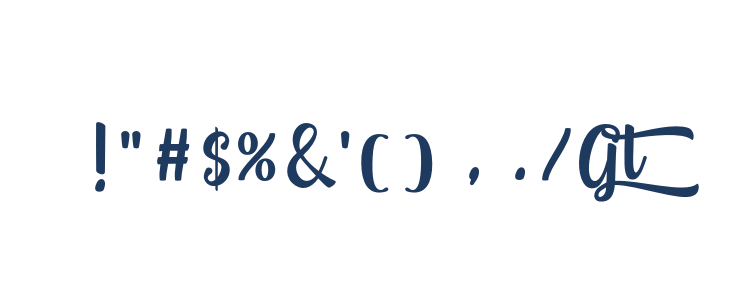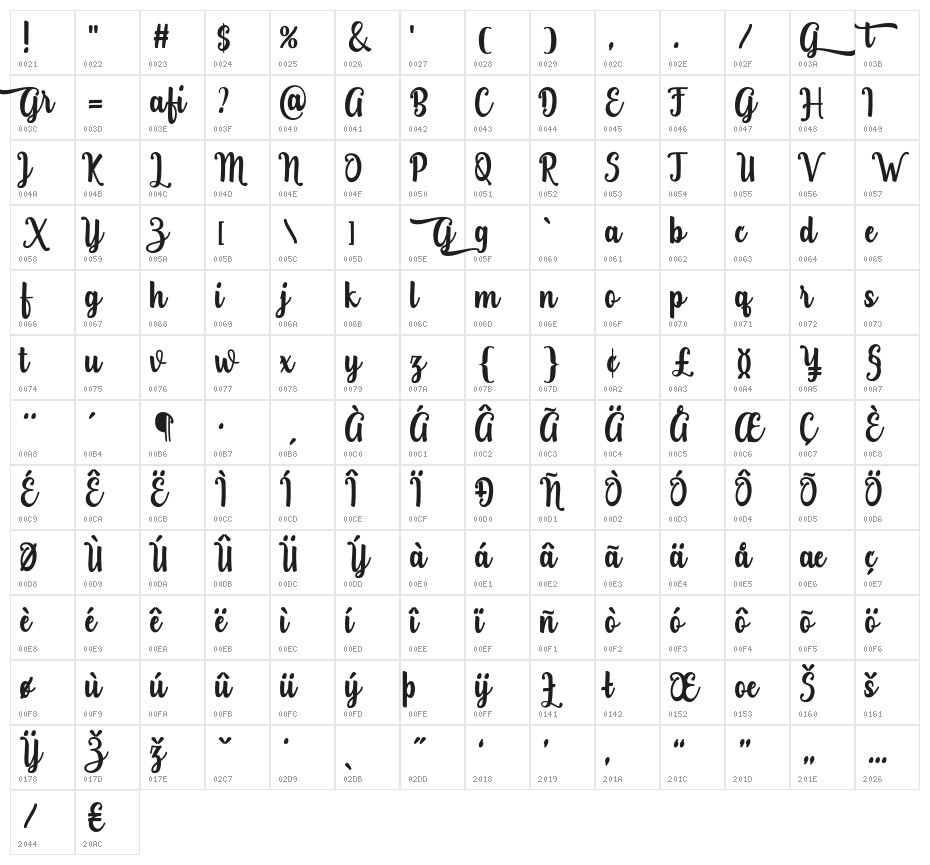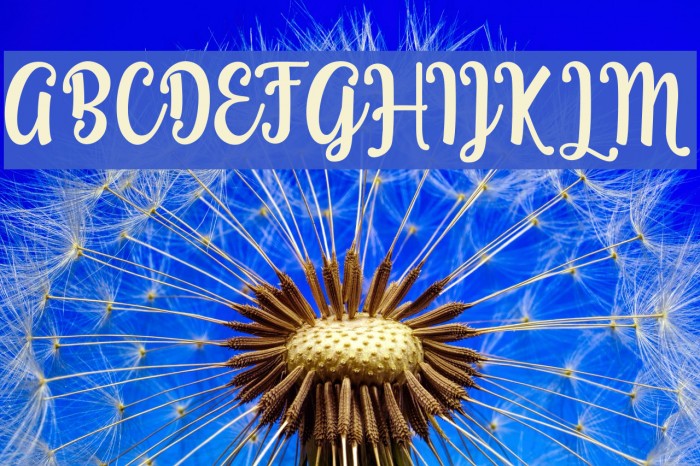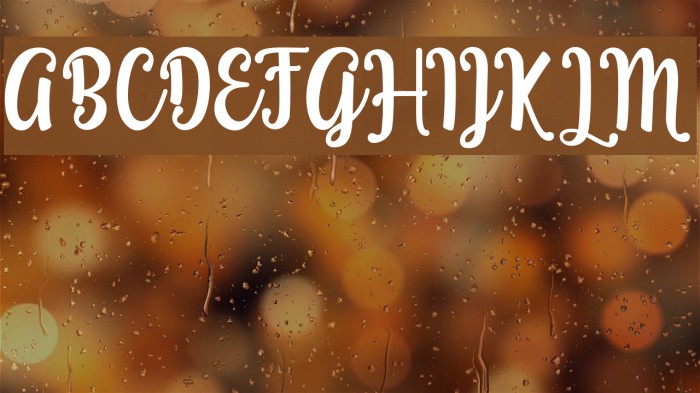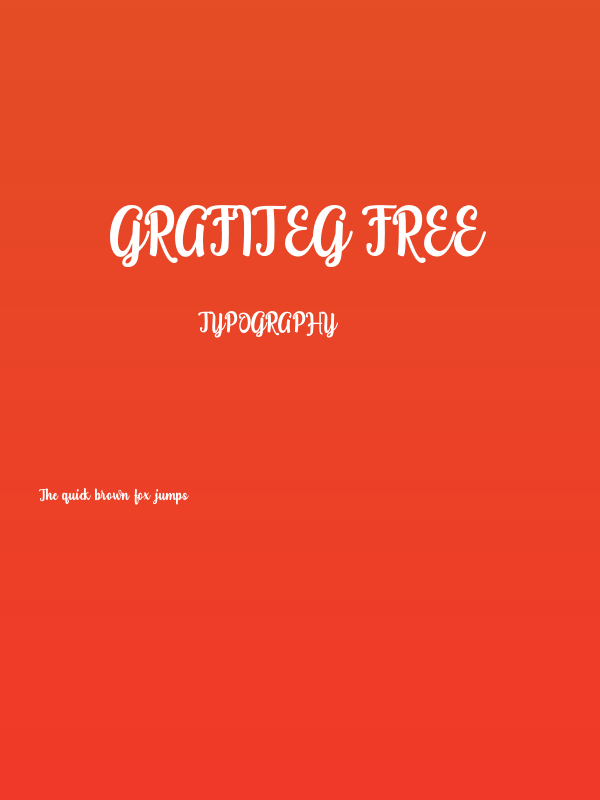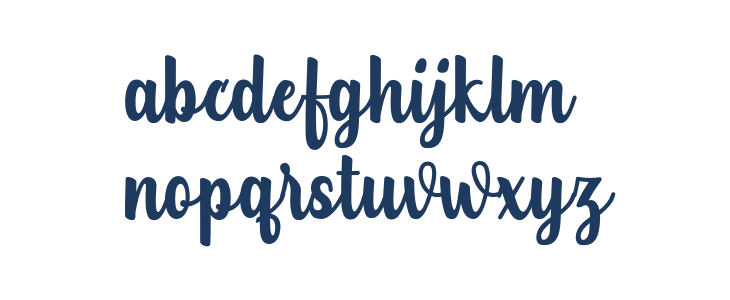
This font features a playful and flowing script style, characterized by its bold and rounded letterforms. The uppercase letters exhibit a consistent height with smooth curves and loops, giving them a whimsical and friendly appearance. The lowercase letters maintain a similar style, with some letters extending slightly below the baseline, adding to the font's dynamic feel. The numbers and special characters are designed to match the overall aesthetic, ensuring a cohesive look across all characters. This font's design is both approachable and stylish, making it suitable for a variety of creative applications.
Use CaseLogos, Headlines, Invitations
Proposed ProjectsIdeal for greeting cards, invitations, branding, and playful logos.